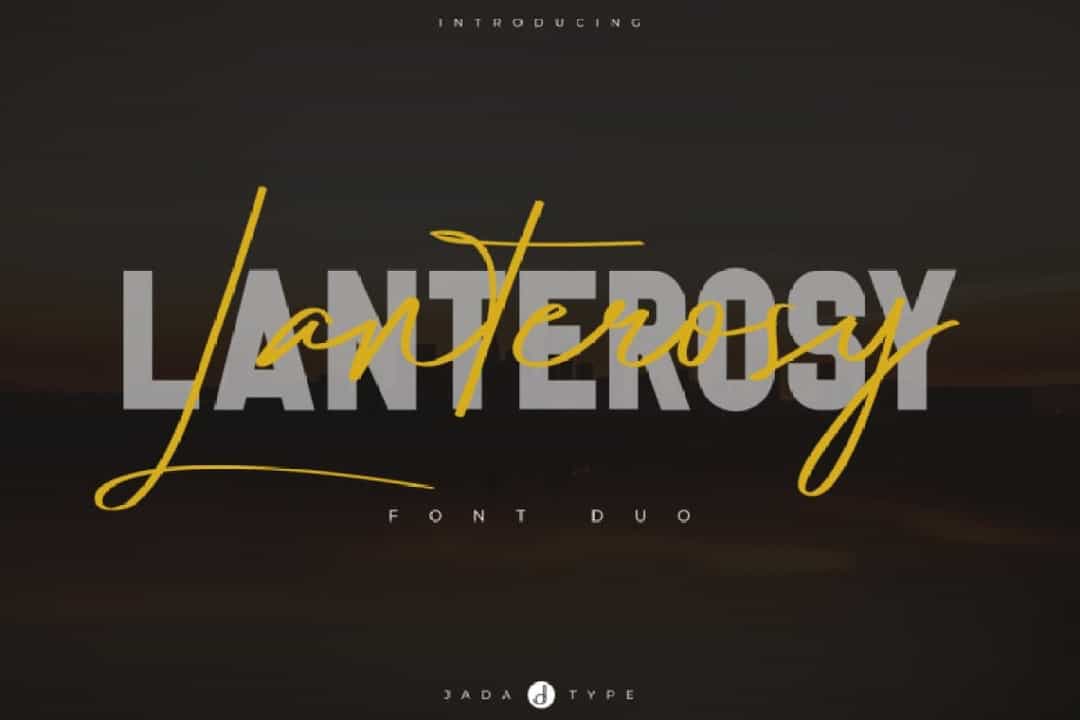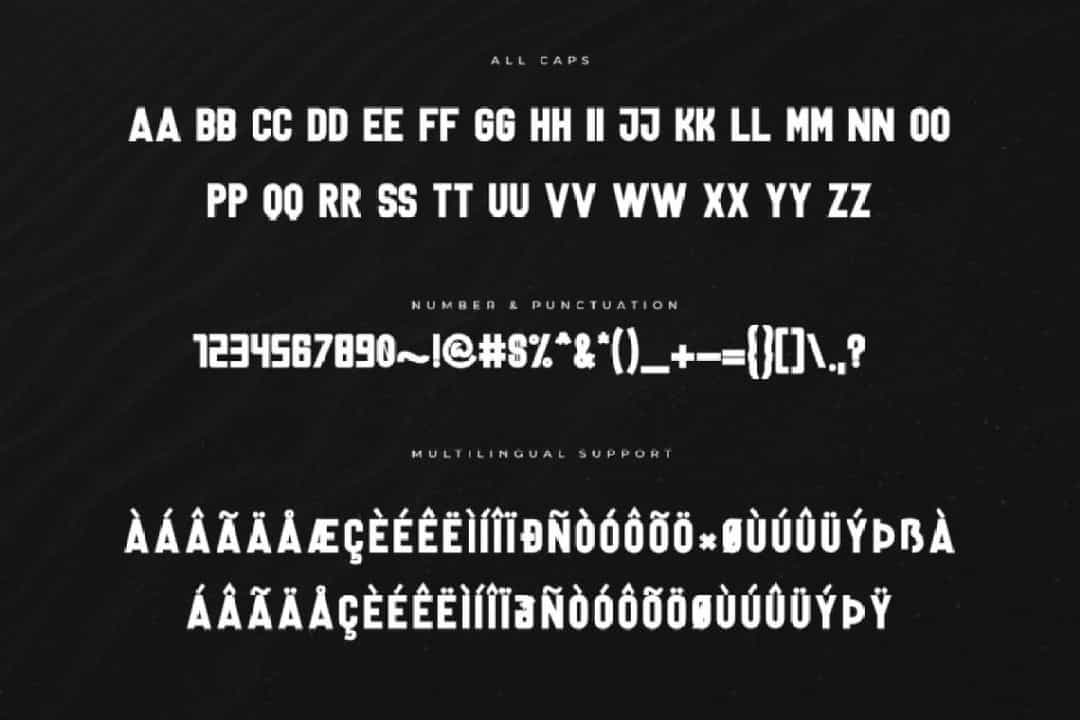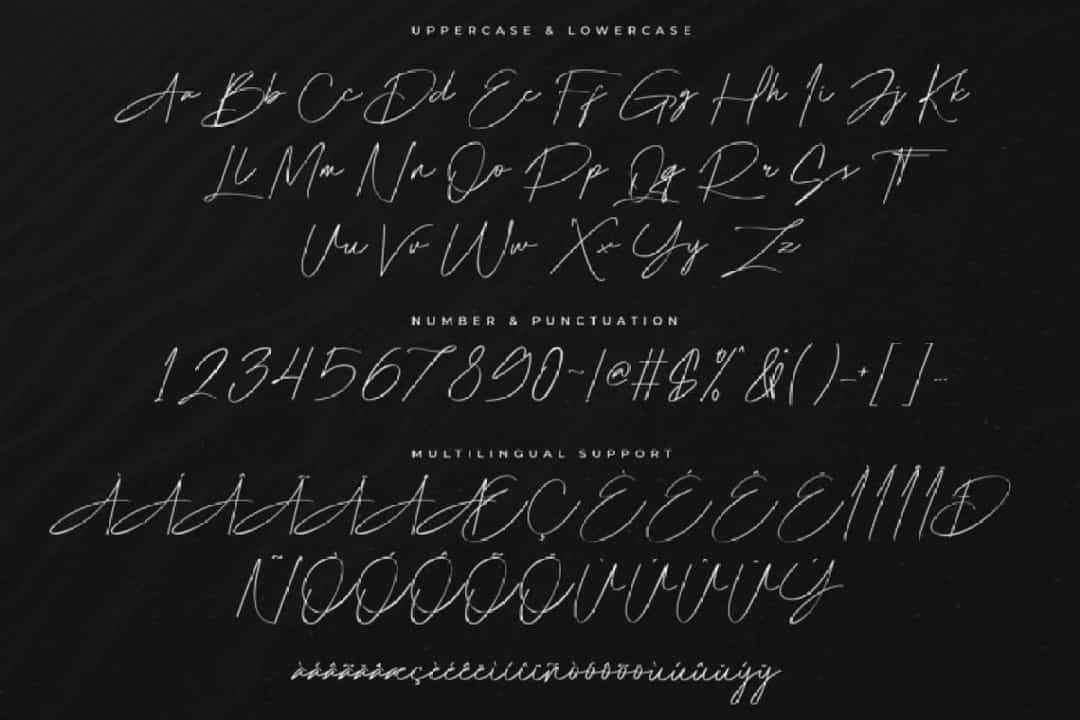
Lanterosy is quite a nice pair of fonts that compliment each other quite well. Lanterosy script comes with a clean and modern design whereas Lanterosy Sans Serif has a strong and catchy look perfect for titles or logos. Great for headlines or for creating a brand.